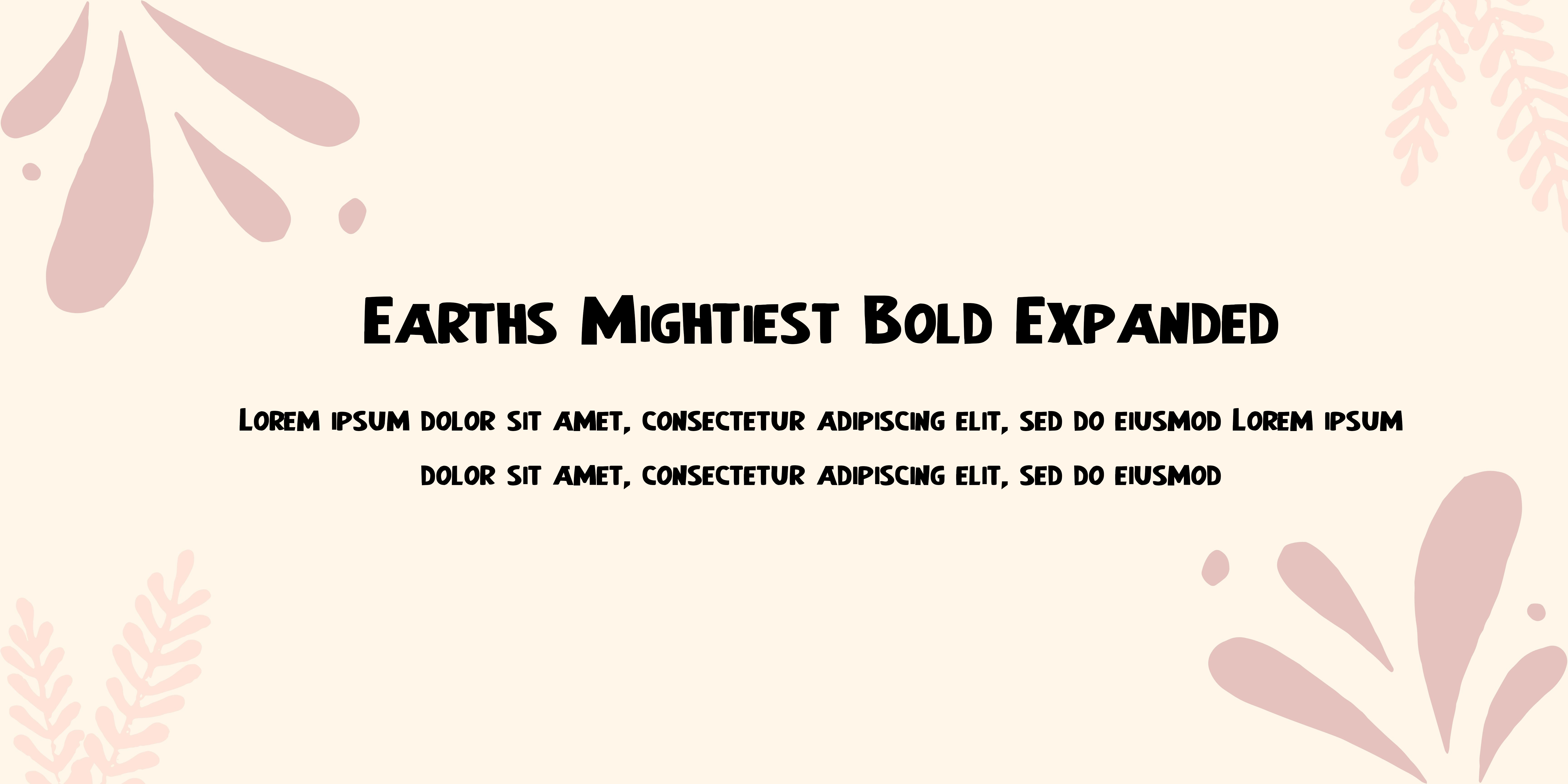
Earths Mightiest Bold Expanded font is an ideal choice for adding a touch of excitement to your creative projects. This font belongs to the Bold Expanded subfamily, which provides a bold and expanded appearance, perfect for making a strong impact.